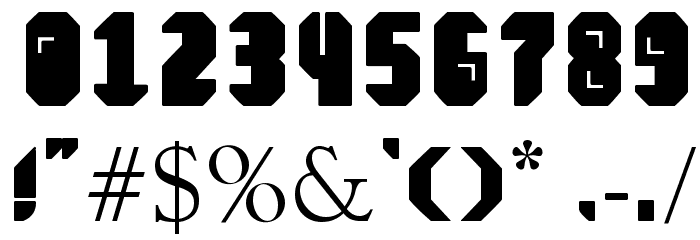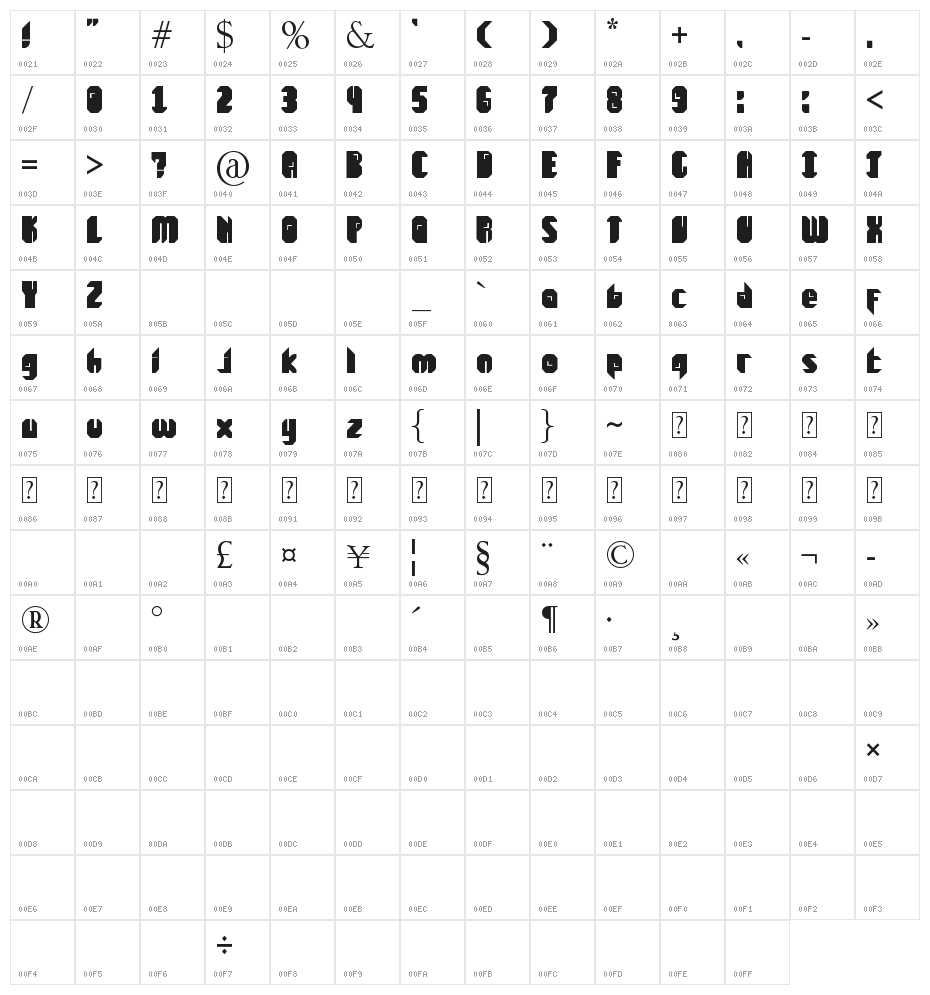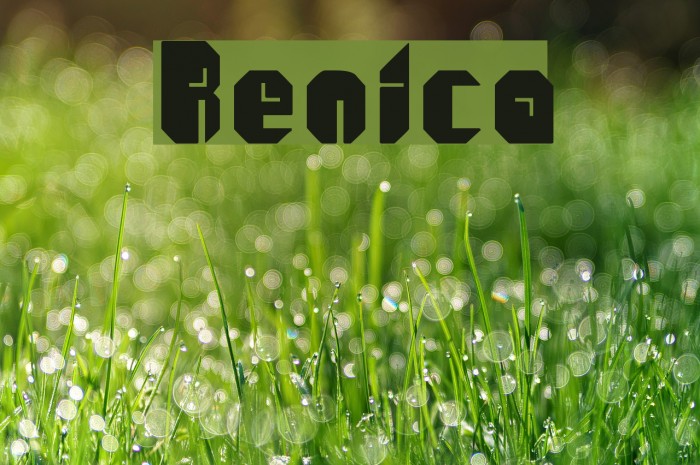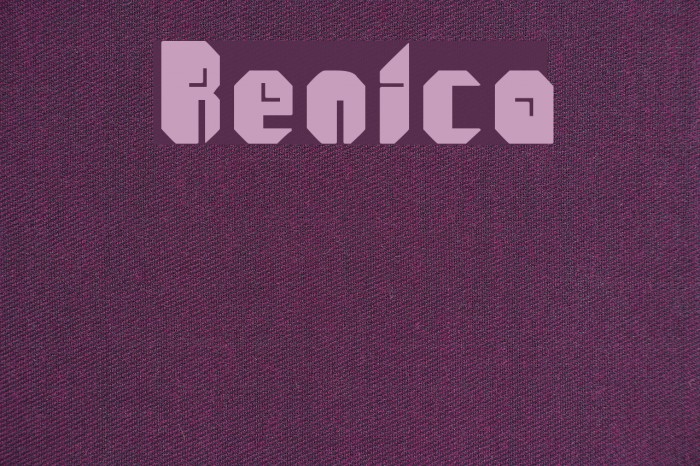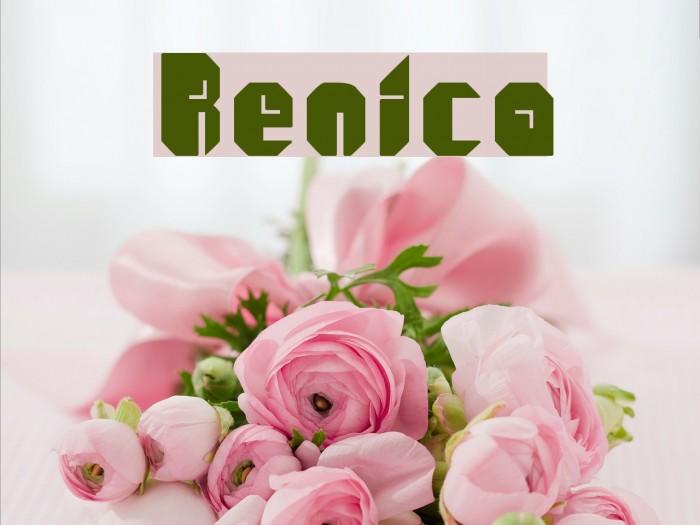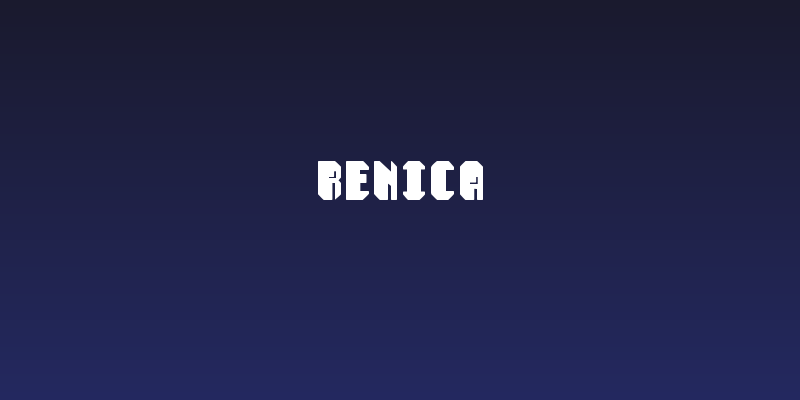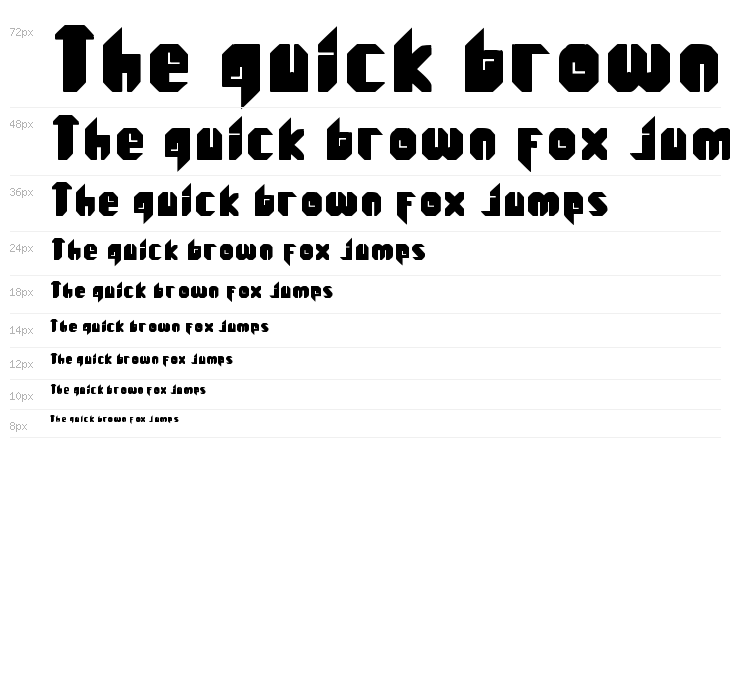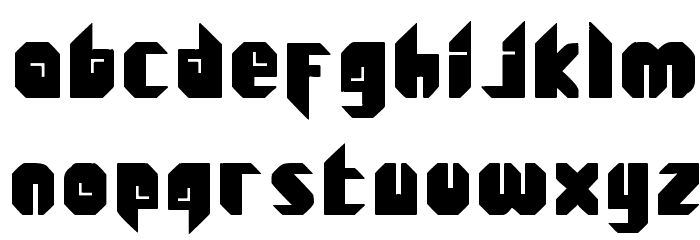
Renica Font
Renica Description
This font features a bold and geometric style with sharp, angular edges and a strong presence. The characters are designed with a block-like structure, creating a sense of solidity and strength. The uppercase and lowercase letters maintain a consistent width, contributing to a uniform appearance. Numbers and special characters follow the same geometric theme, ensuring a cohesive look across all elements. The font's design is modern and striking, making it suitable for projects that require a bold statement. Its unique style is ideal for capturing attention and conveying a sense of power and stability.
| Proposed Projects | Ideal for branding, posters, headlines, and any design requiring a bold, impactful look. |